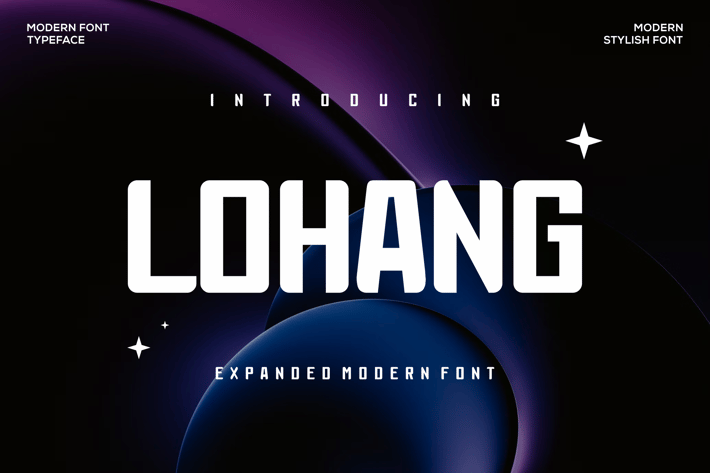
Lohang Font
Introducing our new product Lohang Font - Modern Font
Lohang Font - Modern Font is a bold and authentic display font. The font is suitable for any branding project like logo, esport, and many more. outstanding in a wide range of contexts.